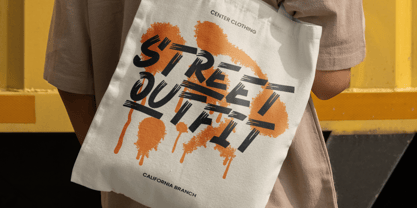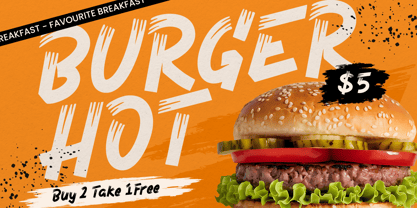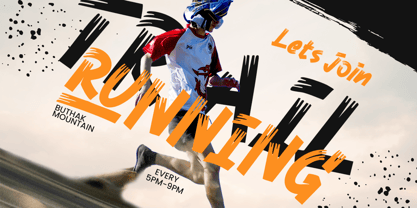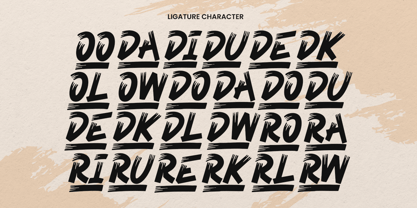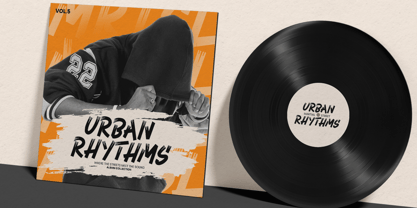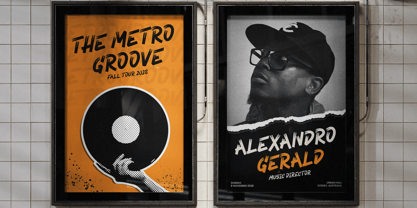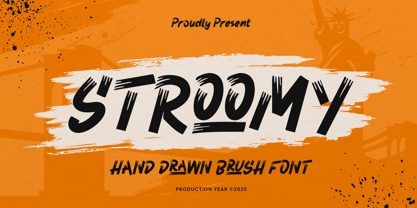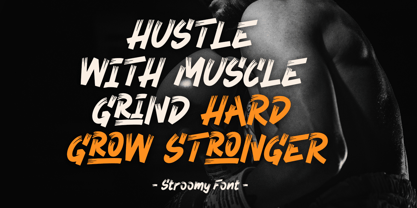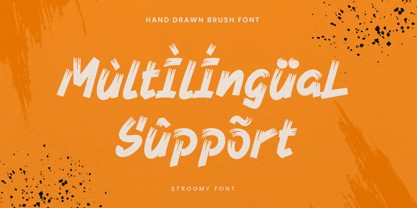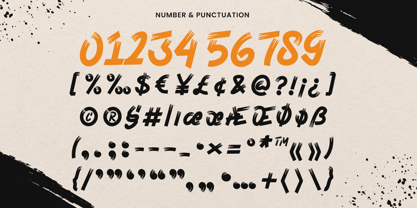
Stroomy
The Stroomy Font Family was designed by Zamroni Hamzah and published by Sensatype Studio. Stroomy contains 1 styles. More about this family
STROOMY is a handdrawn brush font designed to add a natural, expressive, and artistic touch to your projects. Ideal for logos, posters, branding, social media graphics, and creative designs, it features dynamic hand-painted strokes that enhance your visuals.
With flowing brushletter forms and organic curves, STROOMY brings energy and personality to both digital and print designs, perfect for designers seeking an authentic hand-crafted aesthetic.
STROOMY – Handdrawn Brush Font Features
• Bold and artistic handdrawn brush characters
• Perfect for logos, posters, branding, and creative projects
• Uppercase, lowercase, numerals, and punctuation included
• OpenType features for extra versatility
Multilingual support for:
Afrikaans, Albanian, Asu, Basque, Bemba, Bena, Breton, Chiga, Cornish, Dutch, English, Estonian, Filipino, Finnish, Friulian, Galician, German, Gusii, Indonesian, Irish, Italian, Kabuverdianu, Kalenjin, Kinyarwanda, Luo, Luxembourgish, Luyia, Machame, Makhuwa-Meetto, Makonde, Malagasy, Manx, Morisyen, North Ndebele, Nyankole, Oromo, Portuguese, Quechua, Romansh, Rombo, Rundi, Rwa, Samburu, Sango, Sangu, Scottish Gaelic, Sena, Shambala, Shona, Soga, Somali, Spanish, Swahili, Swedish, Swiss, and more.
Add personality and energy to your designs with STROOMY – the ultimate handdrawn brush font for creative projects!